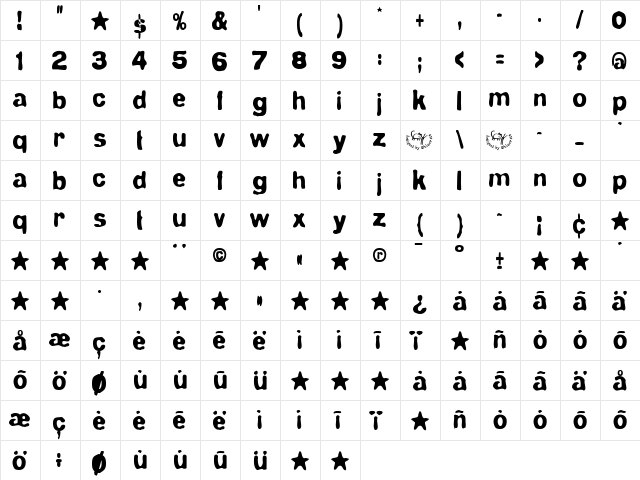
BlueVelvet Medium
Design Context for BlueVelvet Typeface
BlueVelvet is a composed and adaptable typeface that performs quietly and consistently across a wide range of design contexts.